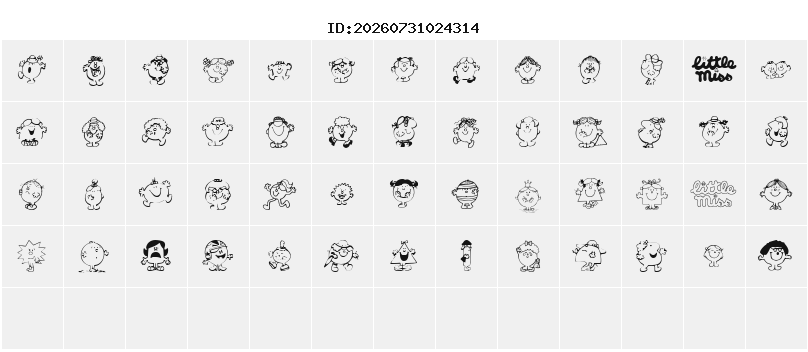
Little Miss Preview
• Font Name: Little Miss
• Designer: SpideRaY
• Description: Latest version 1.5 now includes the 34 main book characters, 4 special, 3 other and the 9 French Little Miss Characters (16 more glyphs)